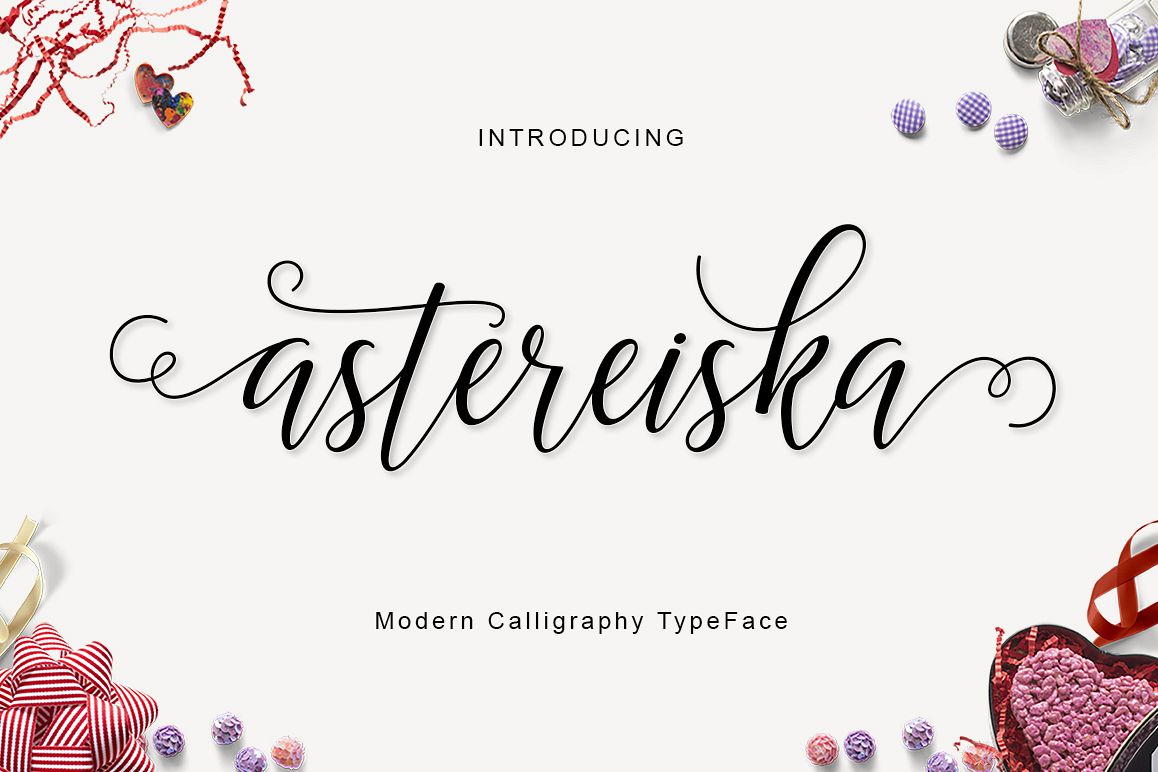
Astereiska Script
Astereiska Script.
Introducing
Astereiska Script
Astereiska Script a new fresh & modern script with a handmade calligraphy style, decorative characters and a dancing baseline! So beautiful on invitation like greeting cards, branding materials, business cards, quotes, posters, and more!!
Astereiska Script come with 791 glyphs. The alternative characters were divided into several Open Type features such as Swash, Stylistic Sets, Stylistic Alternates, Contextual Alternates. The Open Type features can be accessed by using Open Type savvy programs such as Adobe Illustrator, Adobe InDesign, Adobe Photoshop Corel Draw X version, And Microsoft Word. And this Font has given PUA unicode (specially coded fonts). so that all the alternate characters can easily be accessed in full by a craftsman or designer.
Astereiska Script :
Uppercase & Lowercase International Languange & Symbols Support Punctuation & Number PUA Unicode Range Standard Stylistic Alternates Stylistic Set 1-41 Character Variant Contextual.